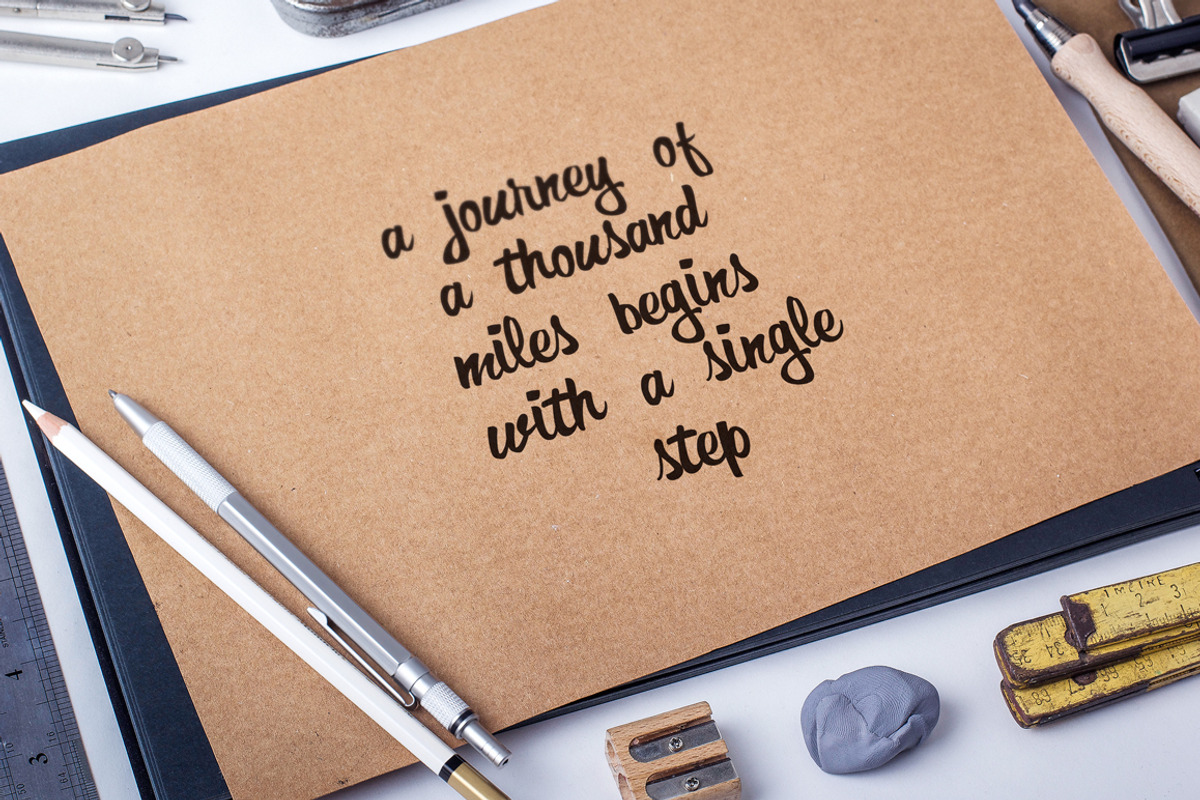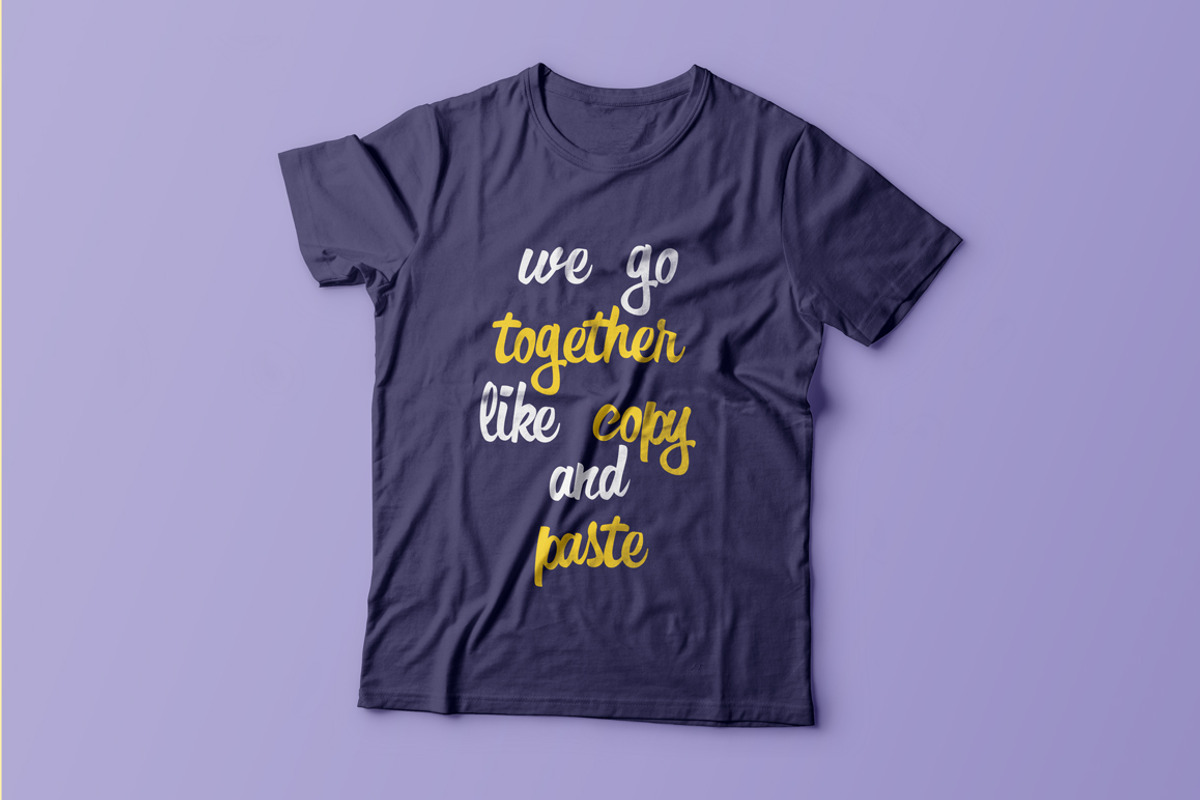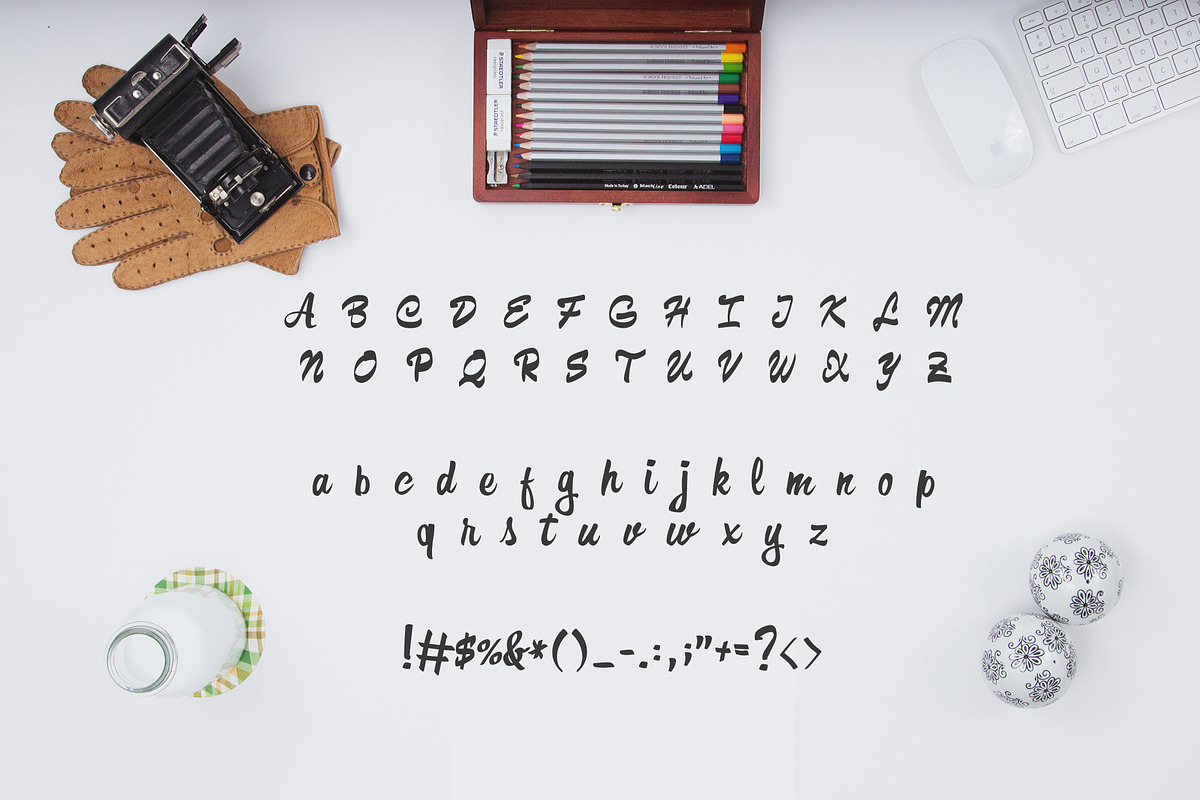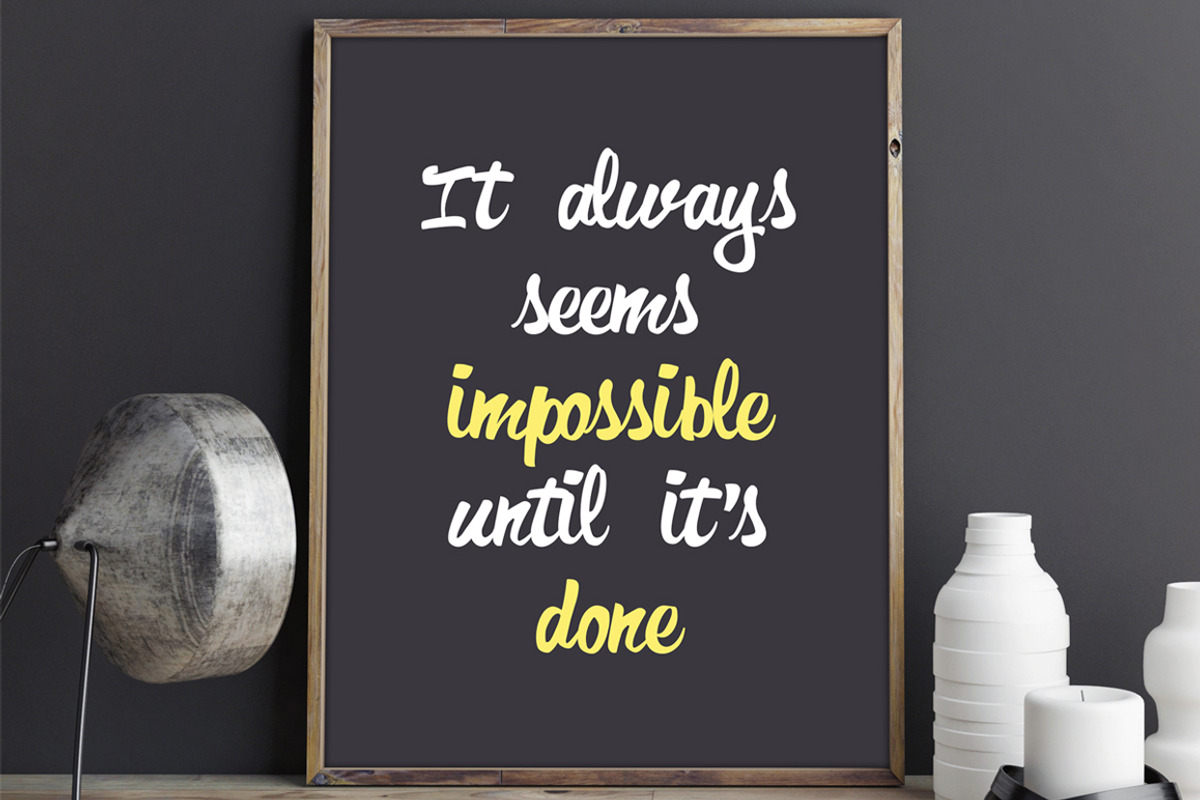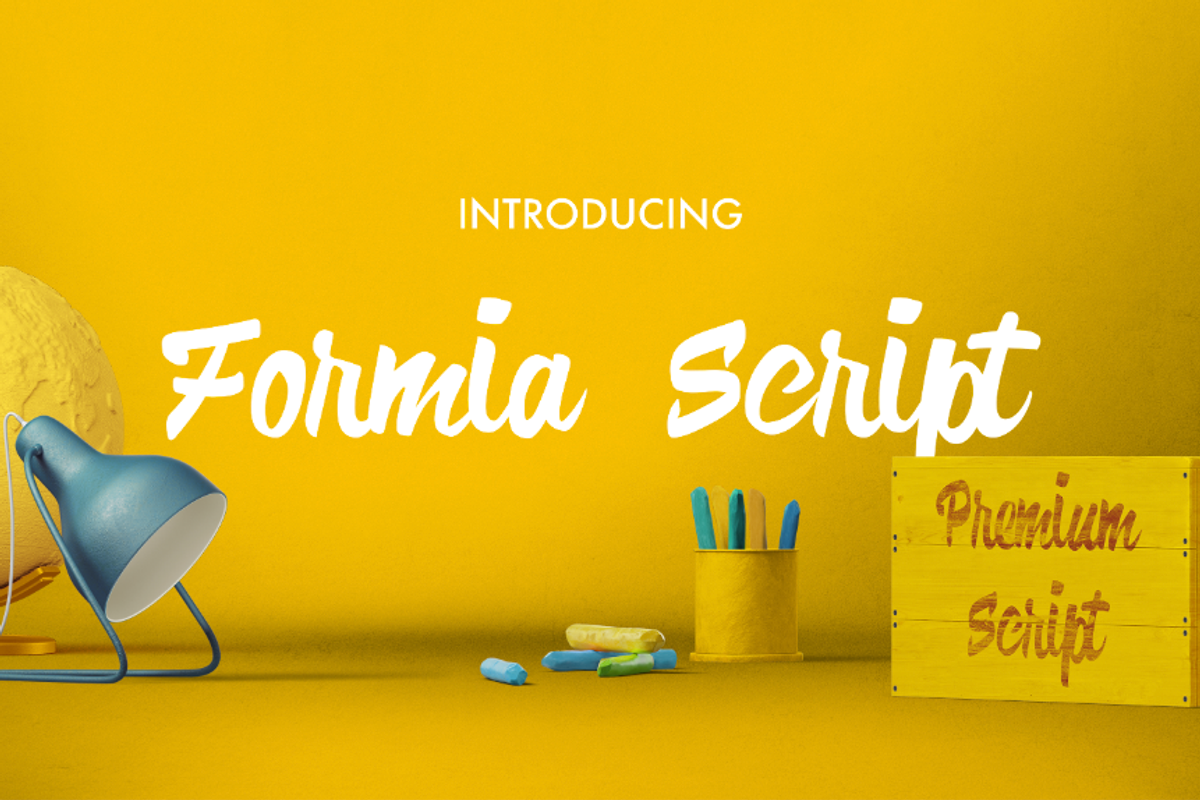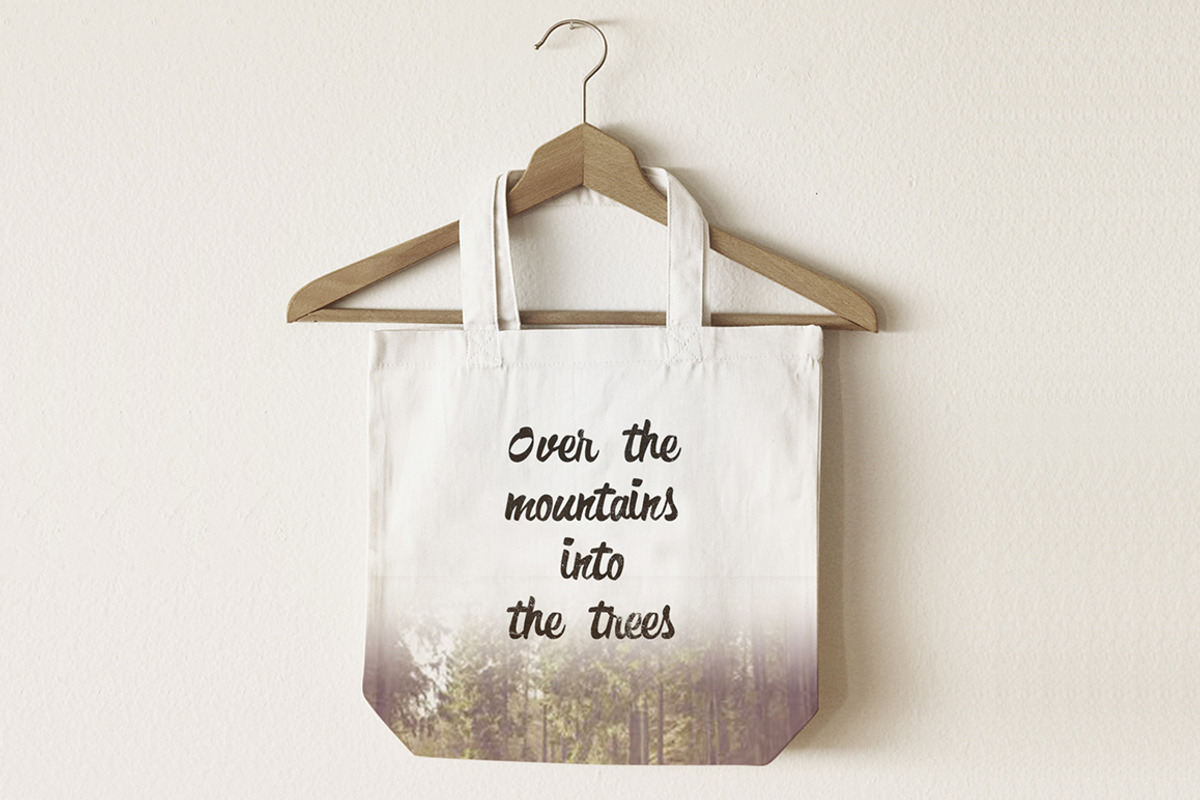
FREE Formia Script font
FREE Formia Script font by GraphicDash is a font selected for branding, posters, packaging, typography.
- This font is 100% based on brush trace and it has special ligatures to combine the letters in a nice way.
Why FREE Formia Script font is worth a look
FREE Formia Script font by GraphicDash fits naturally into Branding, posters, packaging, typography.